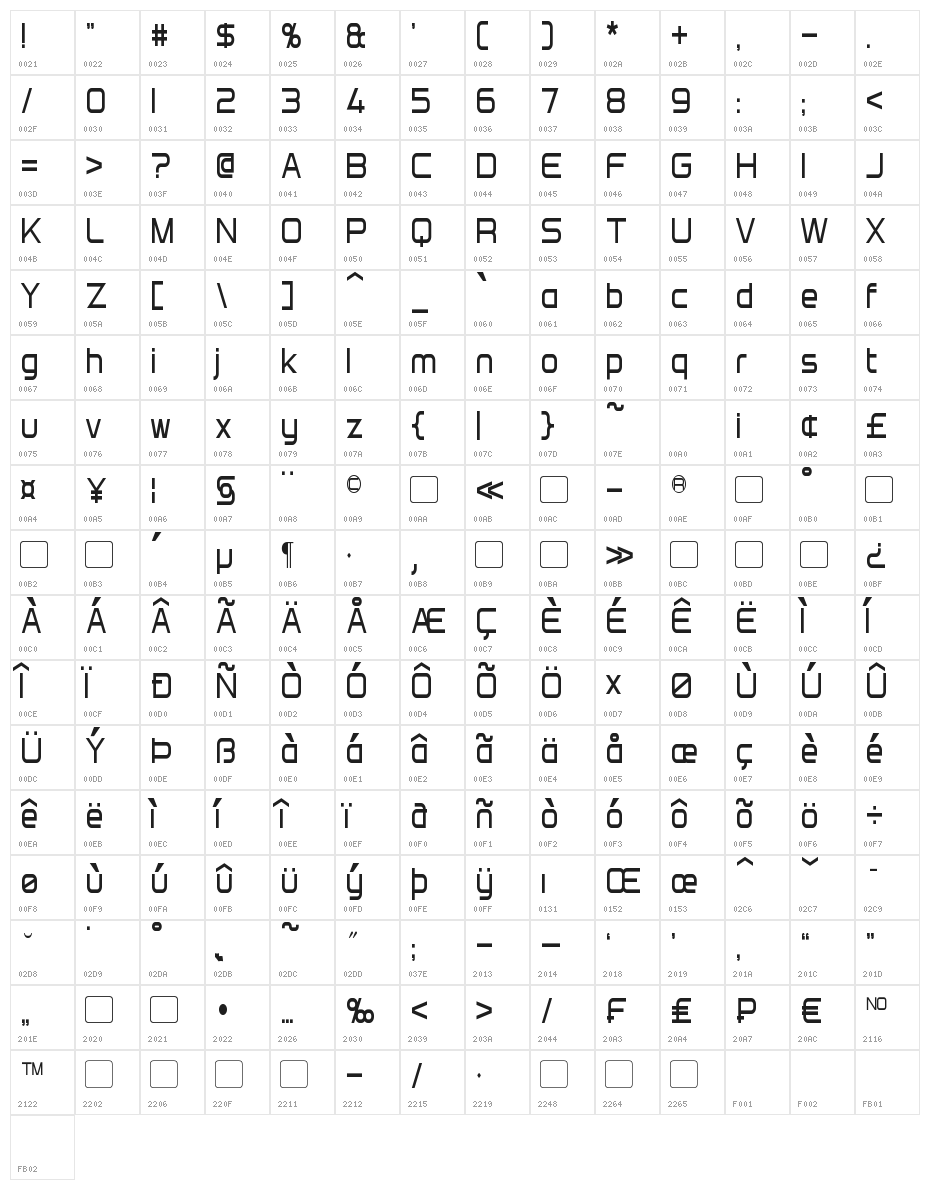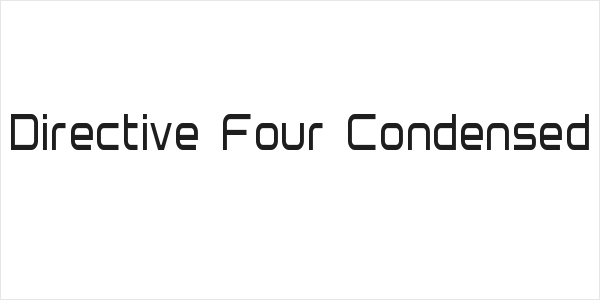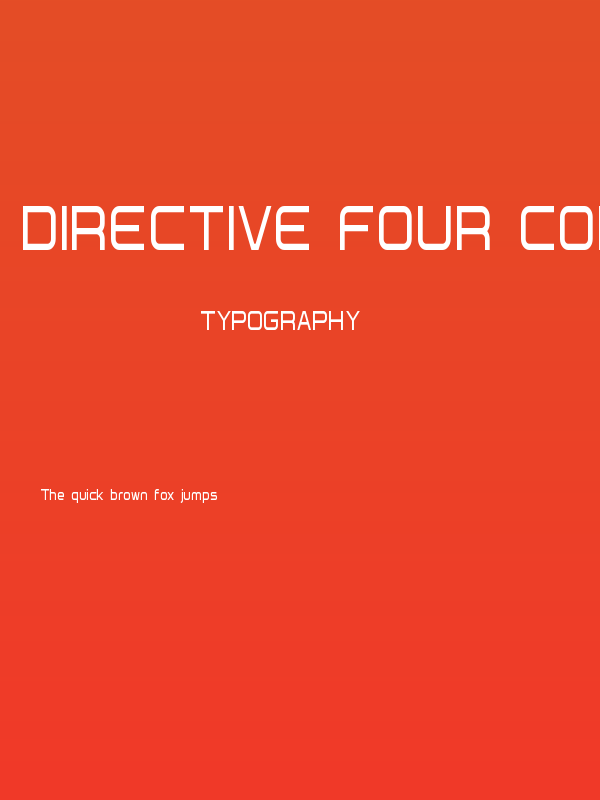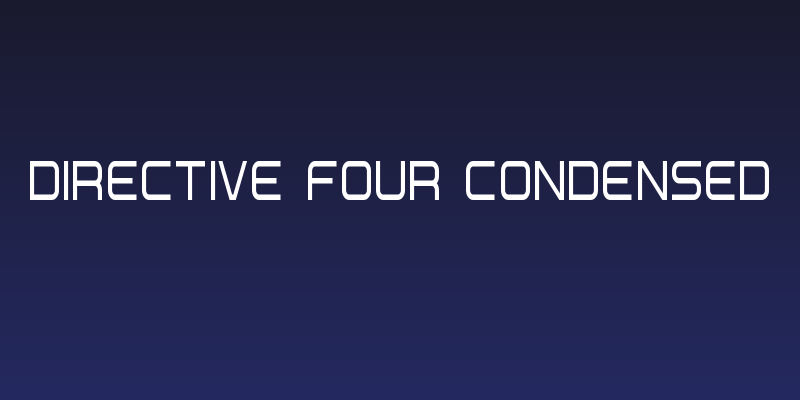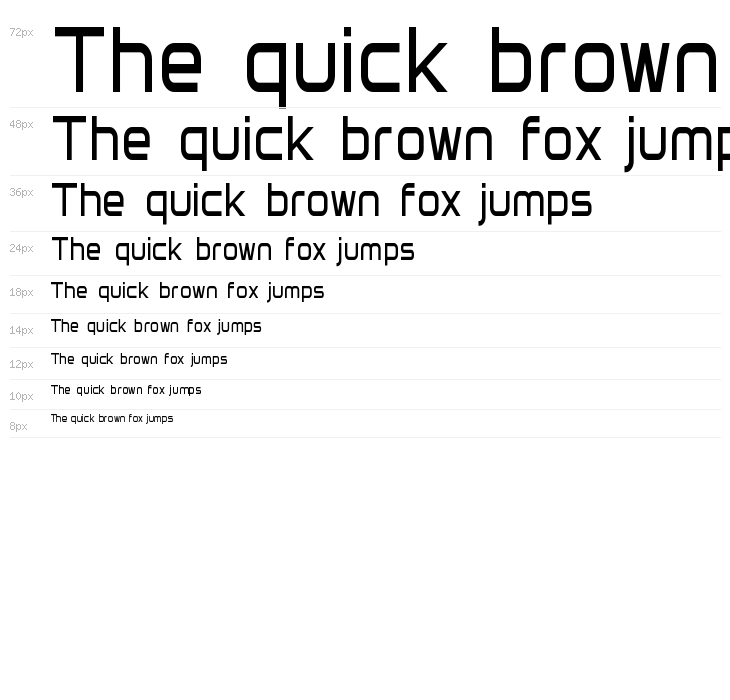
Directive Four Condensed Font
Directive Four Condensed Description
This font exhibits a modern and sleek design with a geometric structure. The characters are condensed, giving it a compact appearance, which is ideal for space-saving applications. The strokes are uniform in thickness, contributing to a clean and minimalistic look. The uppercase and lowercase letters maintain a consistent style, with rounded edges that soften the overall appearance. The numerals and special characters are designed to match the letterforms, ensuring a cohesive look across all text elements. This font is highly legible, making it suitable for both digital and print media.
| Use Case | Headlines, Logos, Digital Interfaces |
| Proposed Projects | Ideal for technology branding, modern web design, app interfaces, and minimalist posters. |